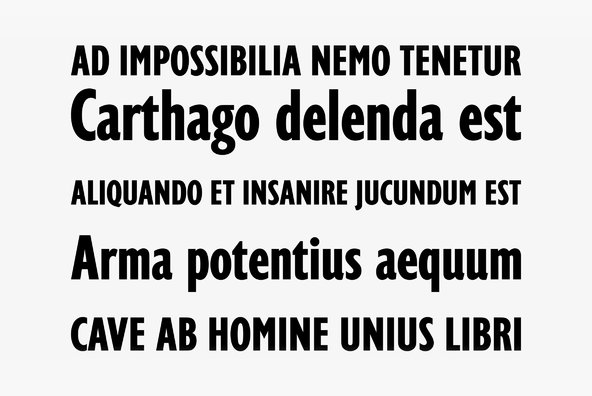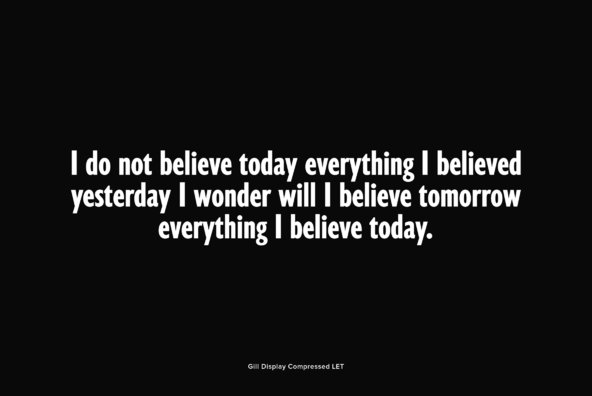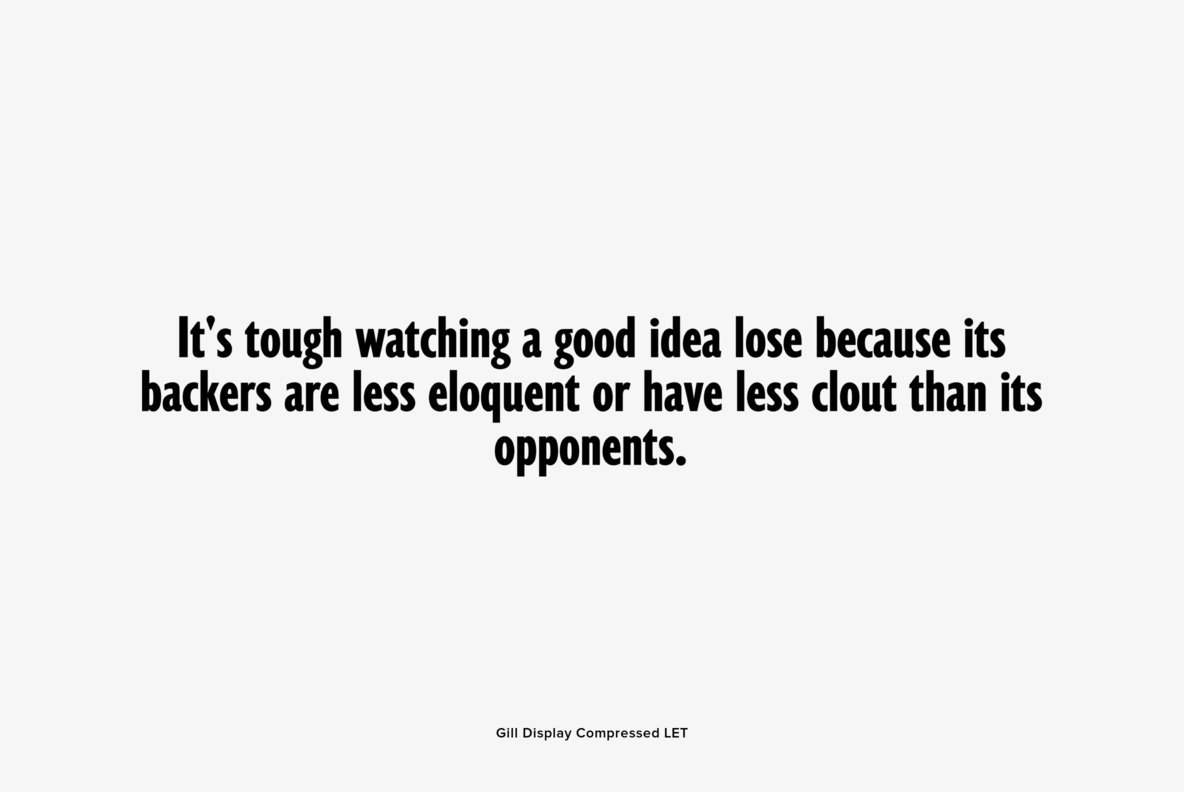
Gill Display Compressed
An extremely condensed typeface based on the popular Gill Sans series. The sans serif style makes this compressed version a perfect choice for large display advertising requirements where space is limited. Since it is a sans serif style, Gill Display Compressed will look good on virtually all display advertising where it needs close letter and word spacing.